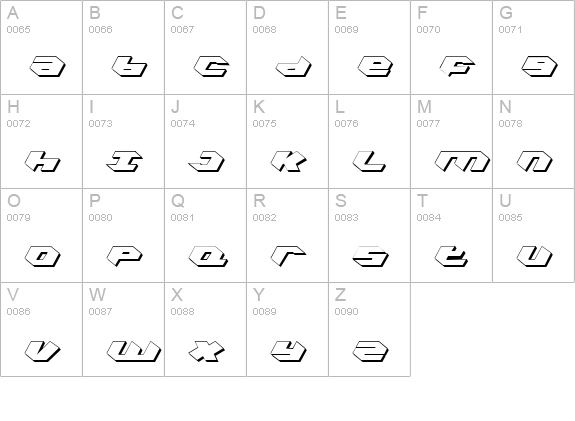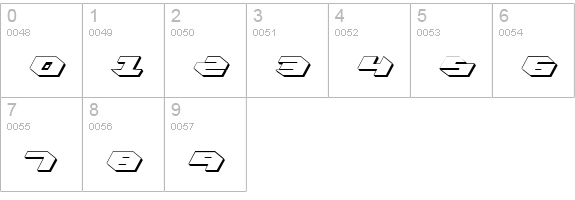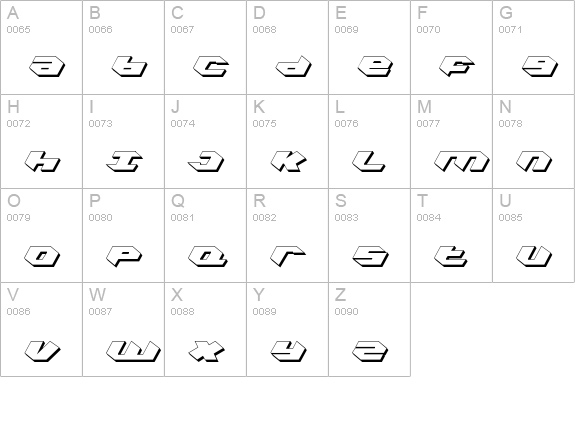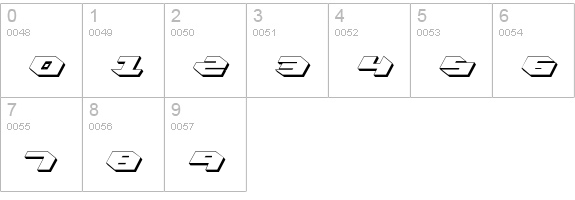
Kubrick Shadow Condensed is a distinctive, condensed-width variant in the Kubrick typeface family \xE2\x80\x94 well suited to design and typography projects.
Kubrick Shadow Condensed font is a sleek and modern typeface that exudes sophistication and elegance. Its condensed letterforms make it perfect for creating eye-catching headlines, branding materials, and editorial designs. The sharp, shadowed edges add a touch of drama and intrigue to any project. Best of all, Kubrick Shadow Condensed font is available for free download at FontsMarket.com. Whether you're a designer looking to add a new font to your collection or a business owner in need of a striking typeface for your marketing materials, Kubrick Shadow Condensed font is sure to make a bold statement. Download it today and elevate your designs with this versatile and stylish font.